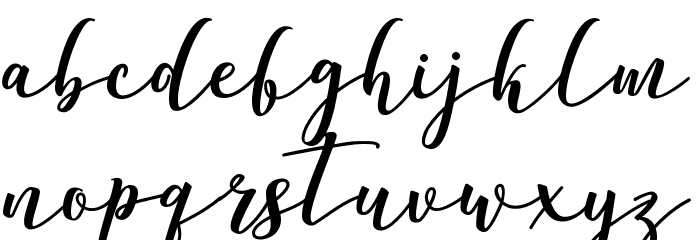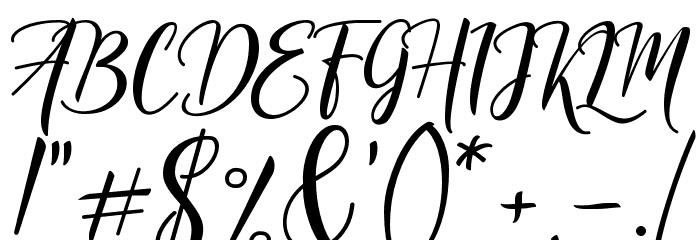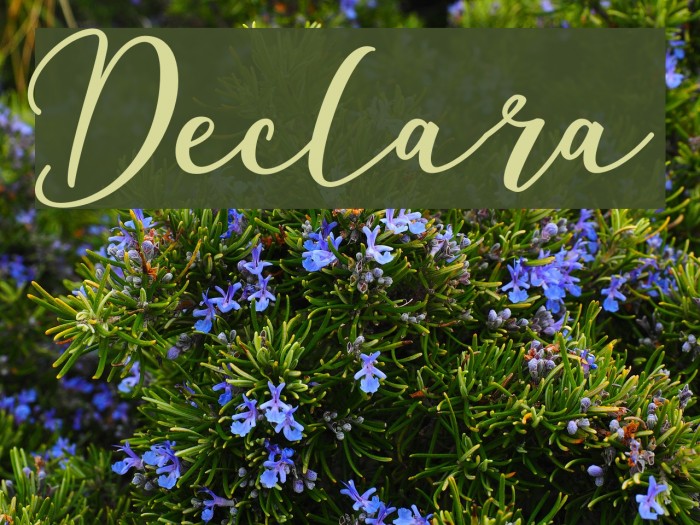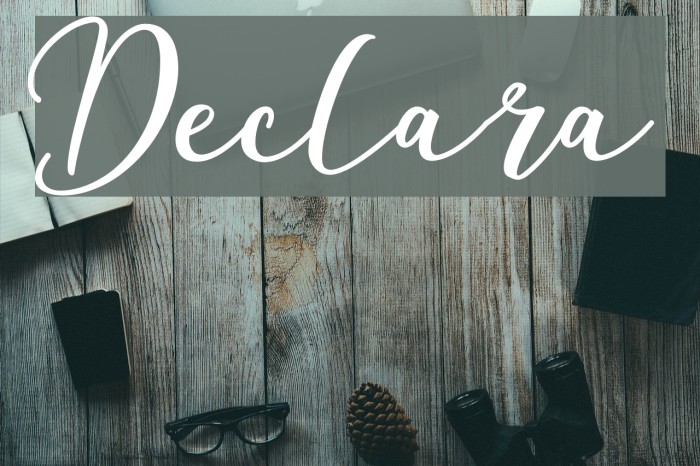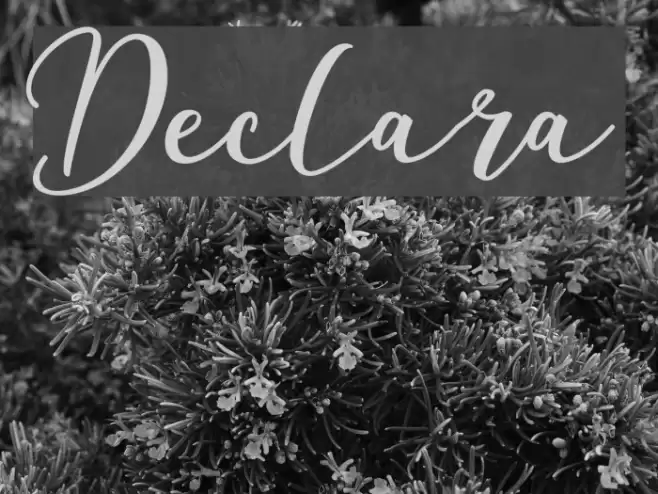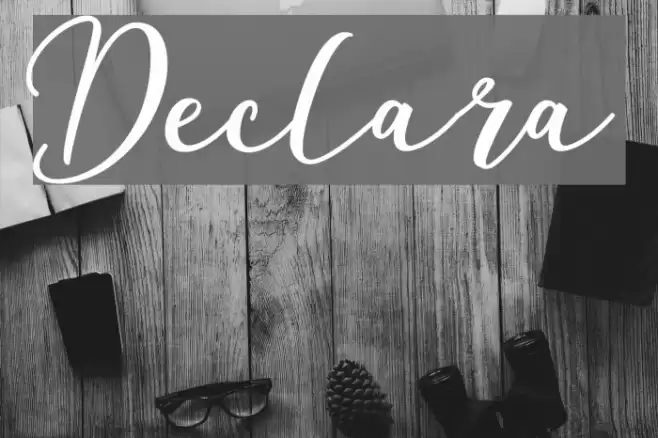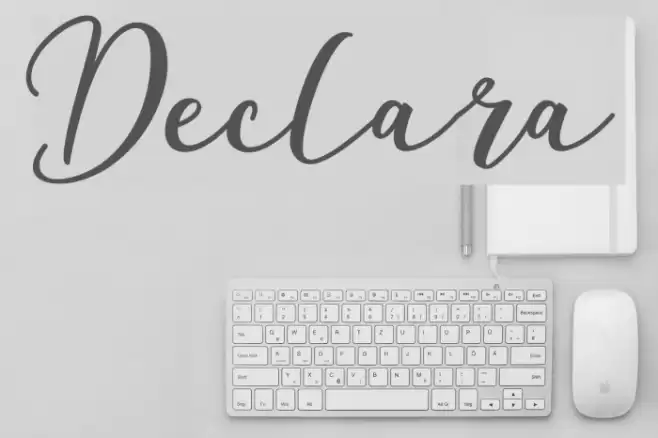
Declara Font
This font exudes a dynamic and elegant script style, characterized by its fluid, cursive strokes and a sense of movement. The uppercase letters are bold and sweeping, with a distinctive flair that adds a touch of sophistication. The lowercase letters maintain a consistent flow, enhancing readability while retaining an artistic touch. The numerals and special characters are crafted with the same attention to detail, ensuring uniformity across all elements. The overall design is both modern and timeless, making it versatile for various applications. Its high contrast in stroke thickness adds to its visual appeal, making it stand out in any setting.
A dynamic and elegant script font with fluid, cursive strokes.
- Proposed Projects: Ideal for wedding invitations, branding, greeting cards, and elegant packaging.
- Use Case: Logos, Headlines, Invitations